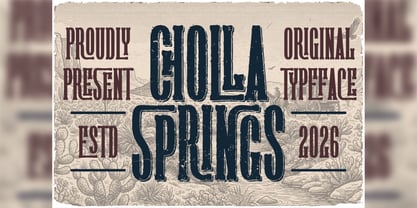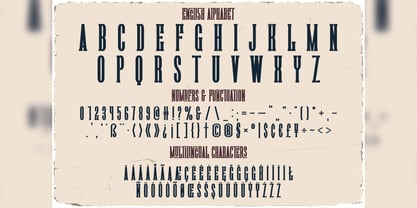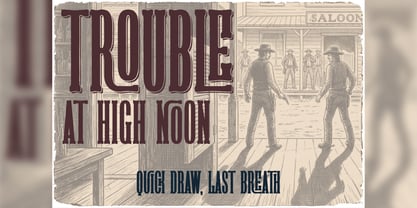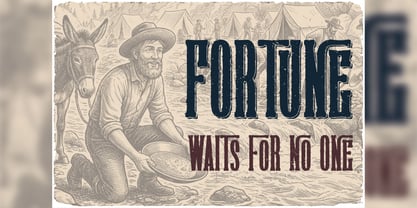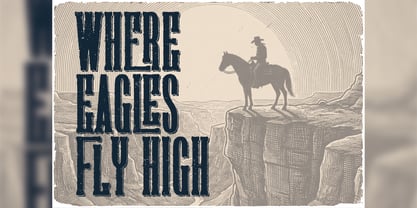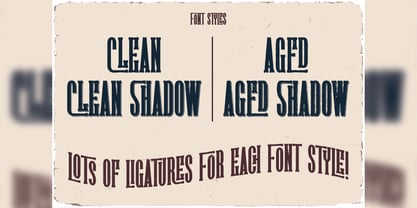
Cholla Springs
La familia tipográfica Cholla Springs fue diseñada por Oleg Voznyy y publicada por Vozzy. Cholla Springs contiene 4 estilos y opciones de paquete familiar. Más información sobre esta familia
Introducing "Cholla Springs," a distinctive font designed to elevate your headlines and accent inscriptions while capturing attention effortlessly. This versatile typeface features an extensive range of additional characters, punctuation marks, and multilingual options, ensuring it meets diverse design needs. With a wealth of standard ligatures, make sure your software supports this OpenType feature to fully utilize its capabilities. Perfect for branding, web design, and editorial projects, "Cholla Springs" will enhance your beautiful designs with its unique charm and style!